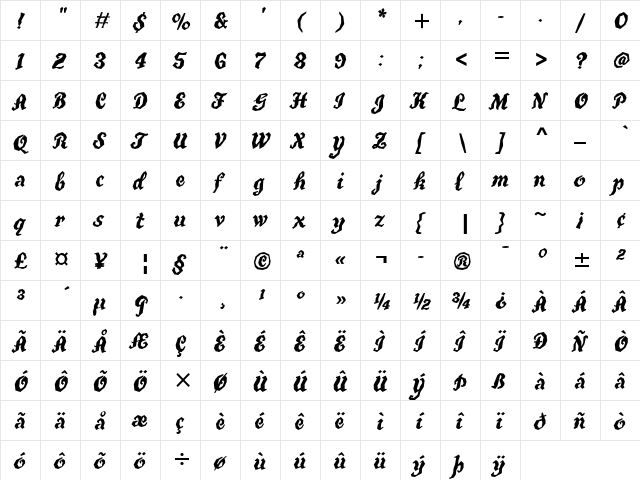
TrueGrit ITC Bold
Design Context for TrueGrit ITC Typeface
TrueGrit ITC embraces imperfection — its rough, textured character adds raw authenticity to designs that want to feel lived-in and unconventional.
A strong fit for alternative music projects, graffiti-adjacent design, and anything that deliberately resists polish.
Pro Tip: Use TrueGrit ITC at larger sizes where the texture and irregularity of each letterform can be clearly seen — it loses its character at small sizes.